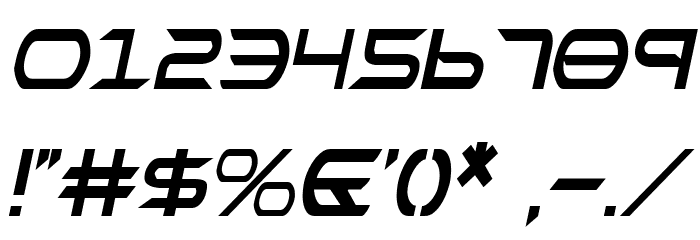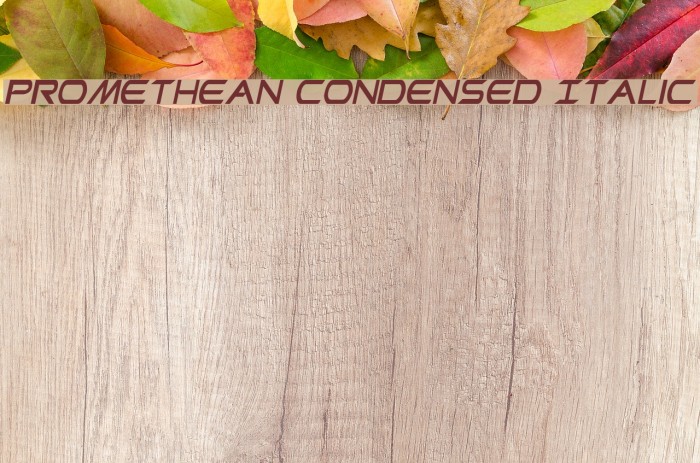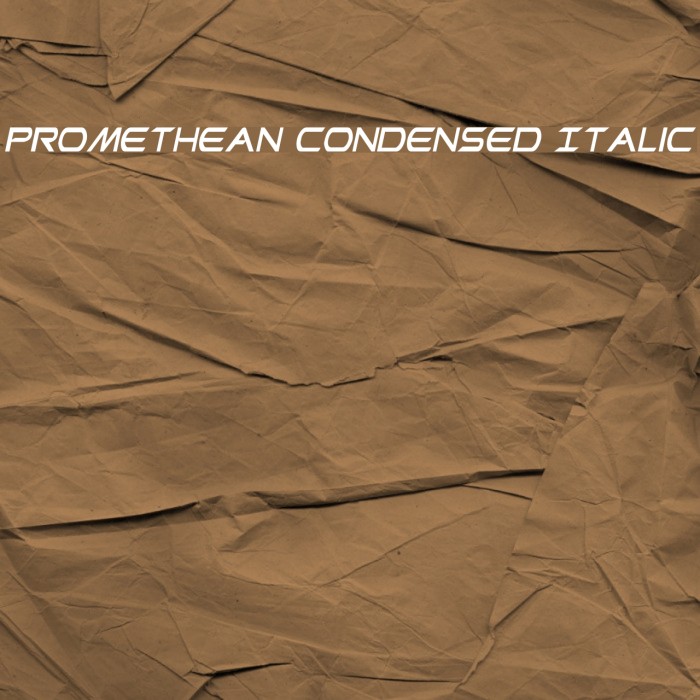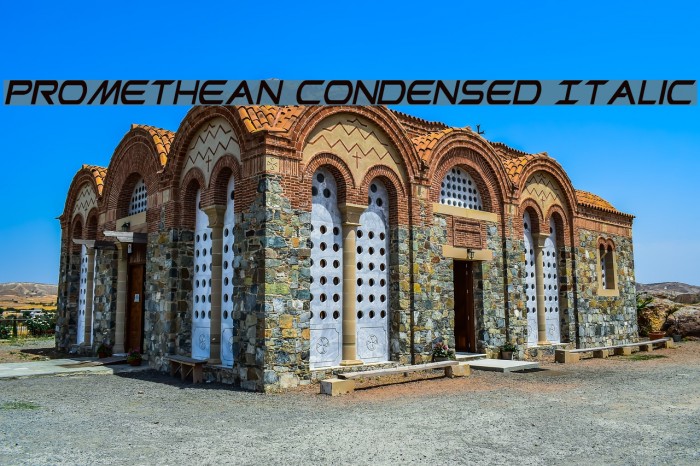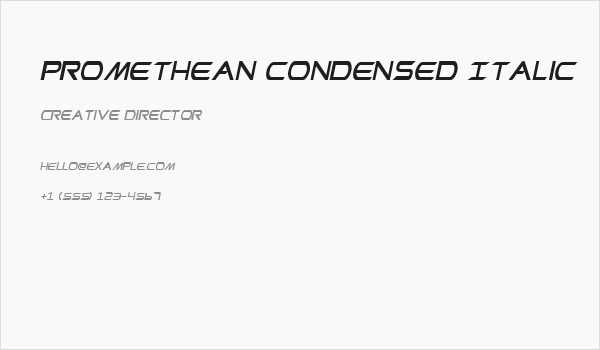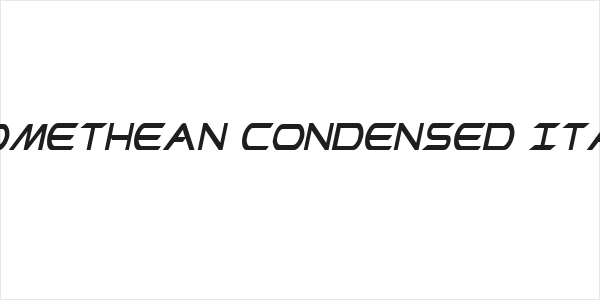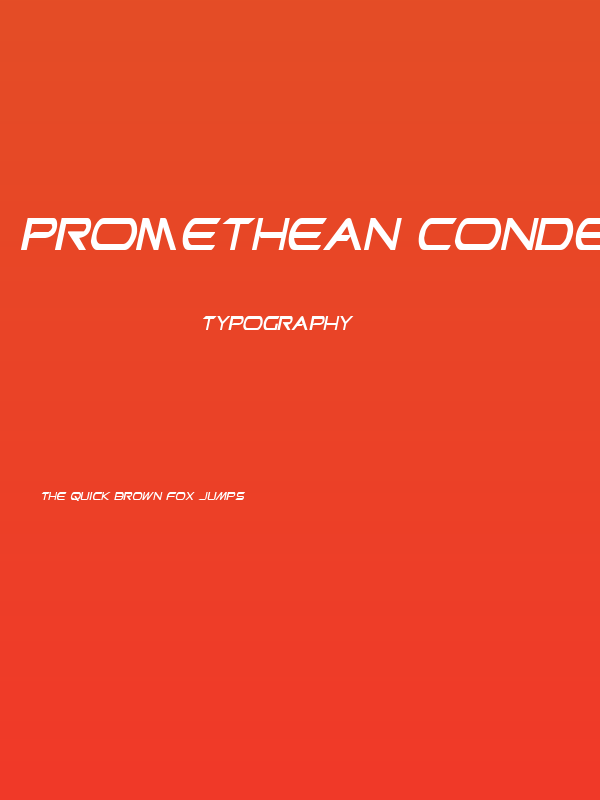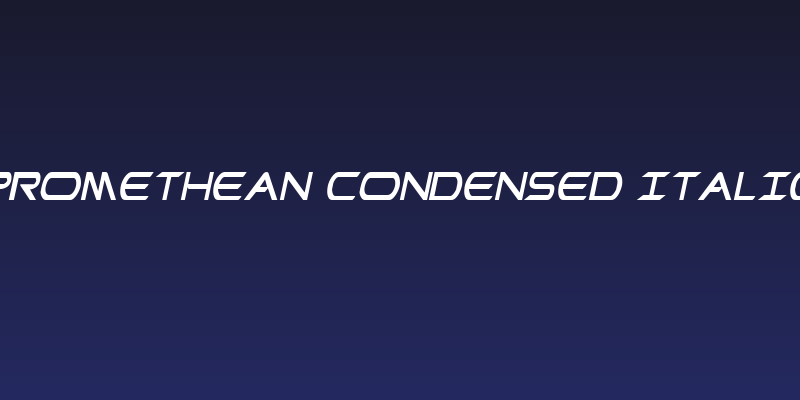
Promethean Condensed Italic Font
Promethean Condensed Italic Description
This font features a sleek, modern design with a condensed and italicized style. The characters are sharply angled, giving a dynamic and forward-moving appearance. The strokes are consistent in weight, providing a uniform look across all characters. The font's condensed nature allows for efficient use of space, making it suitable for various design applications. The italic slant adds a sense of motion and urgency, enhancing its appeal for contemporary and futuristic themes. The numerals and special characters maintain the same stylistic elements, ensuring cohesive visual communication.
| Proposed Projects | Ideal for tech branding, modern advertising, sports team logos, and futuristic design projects. |